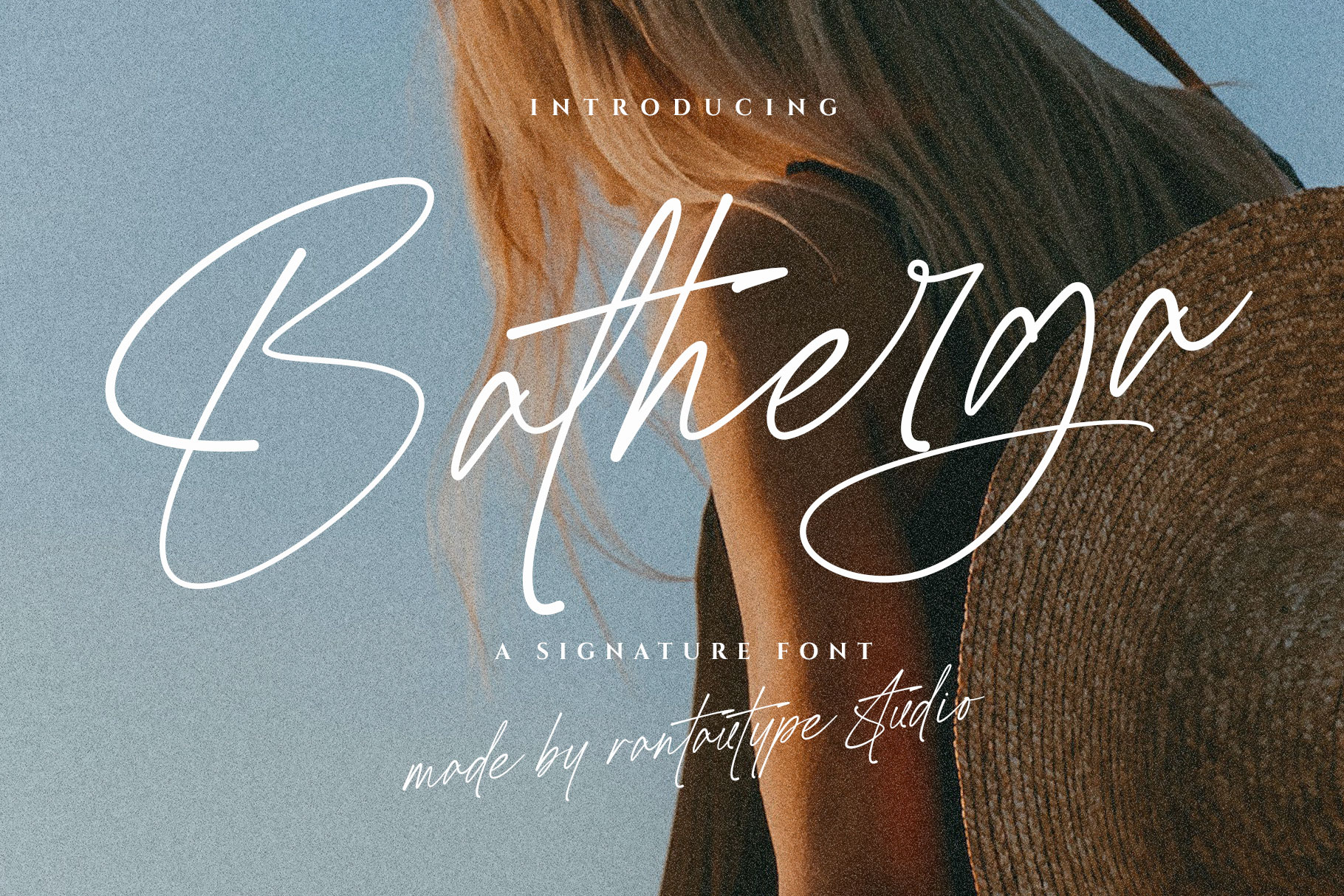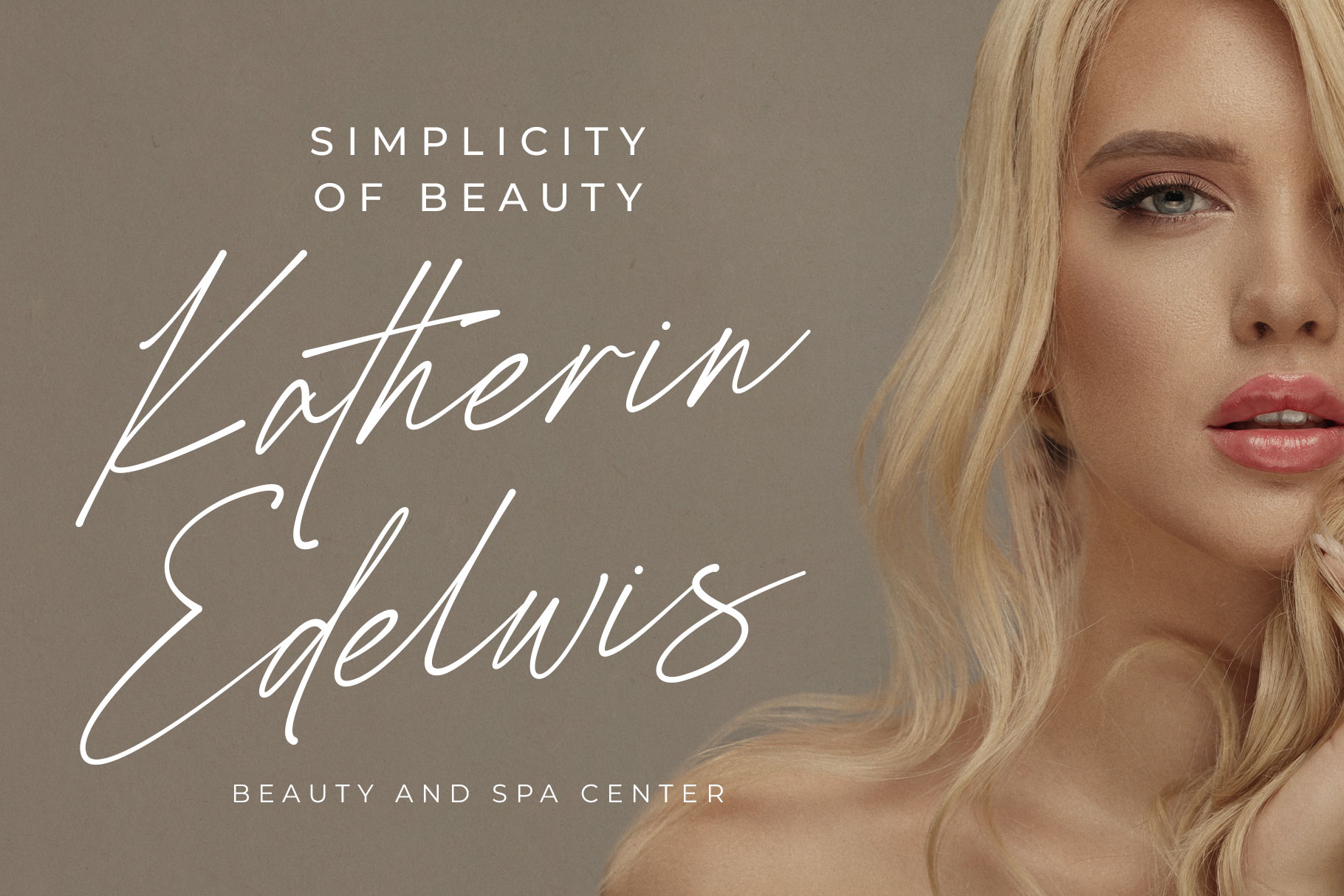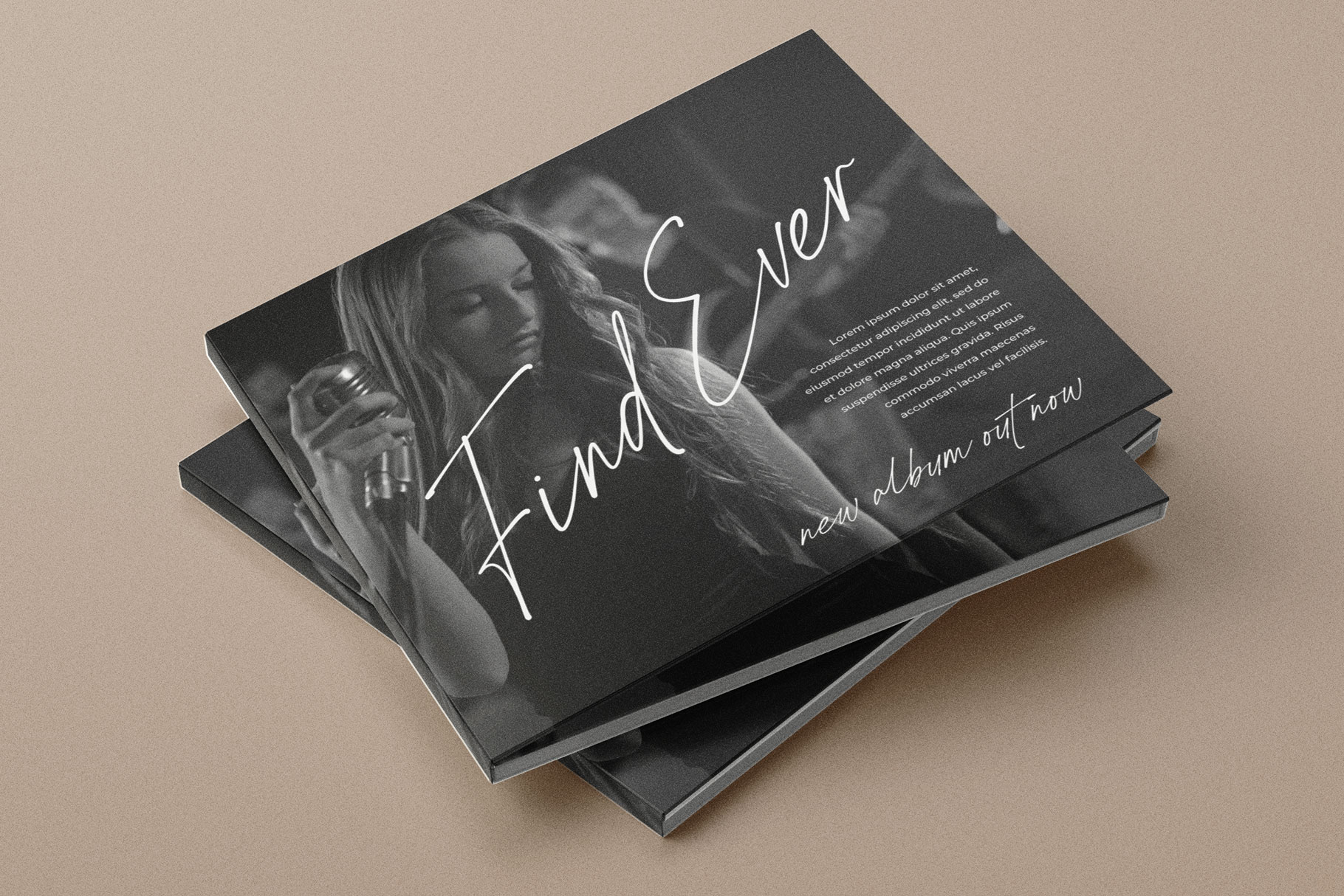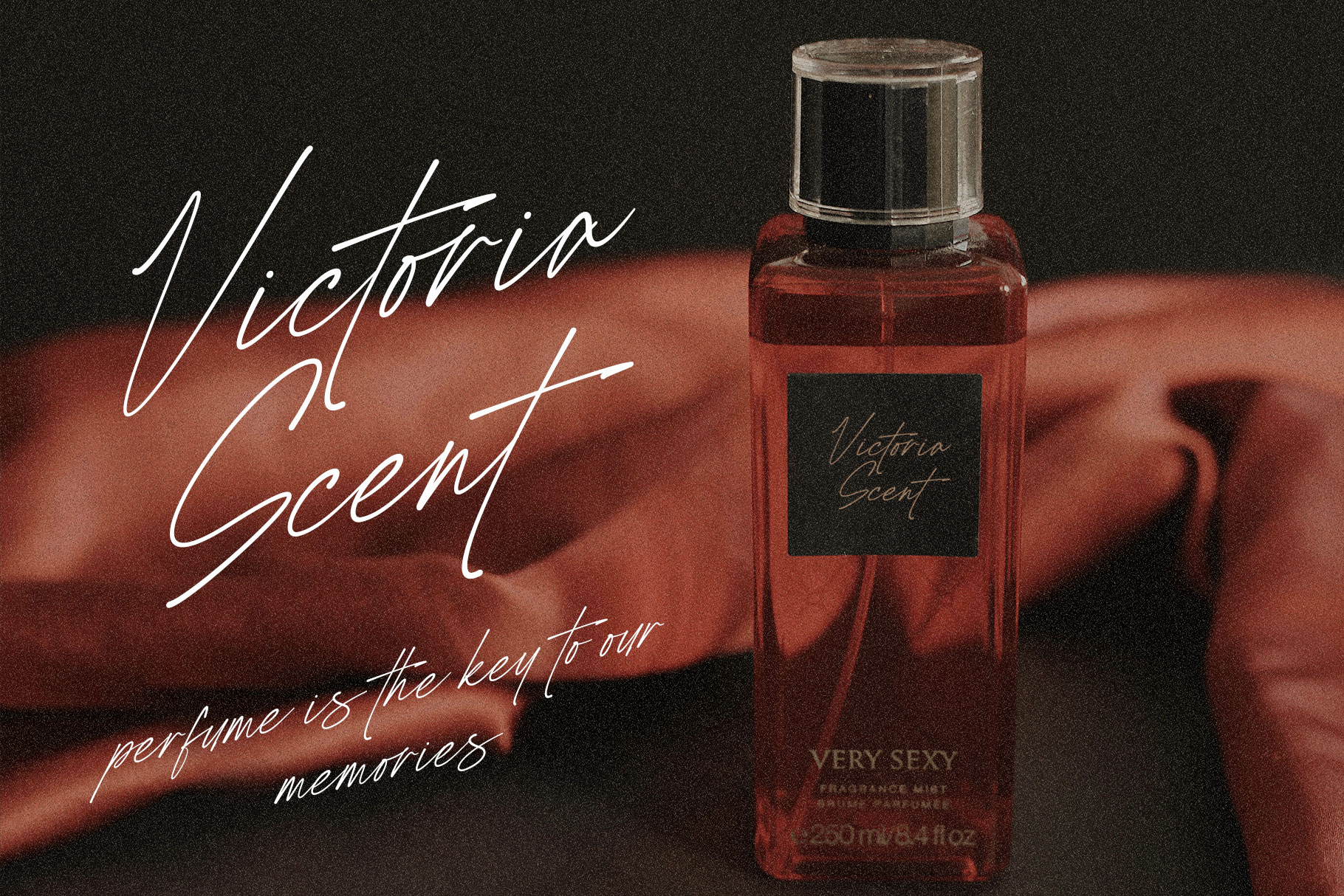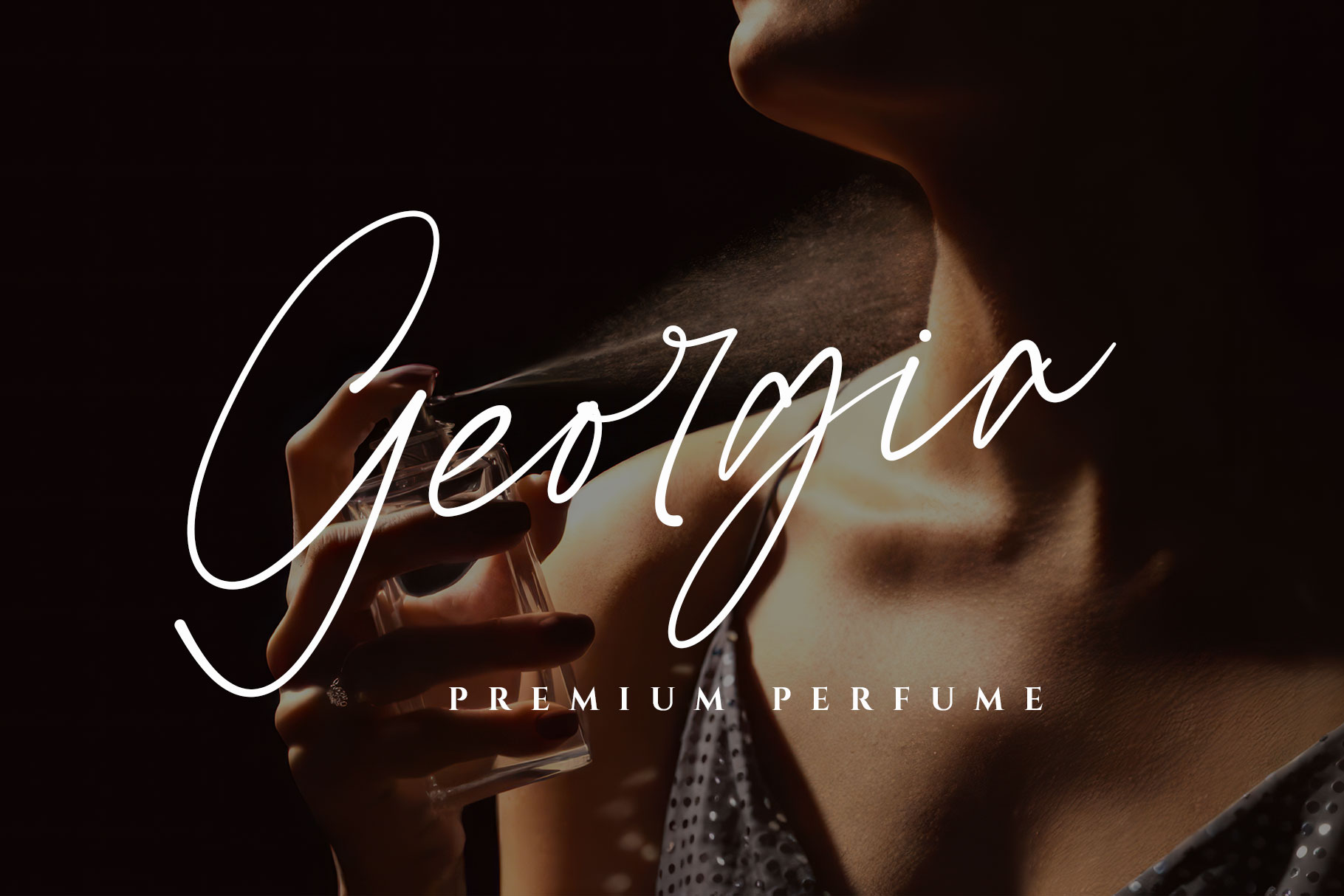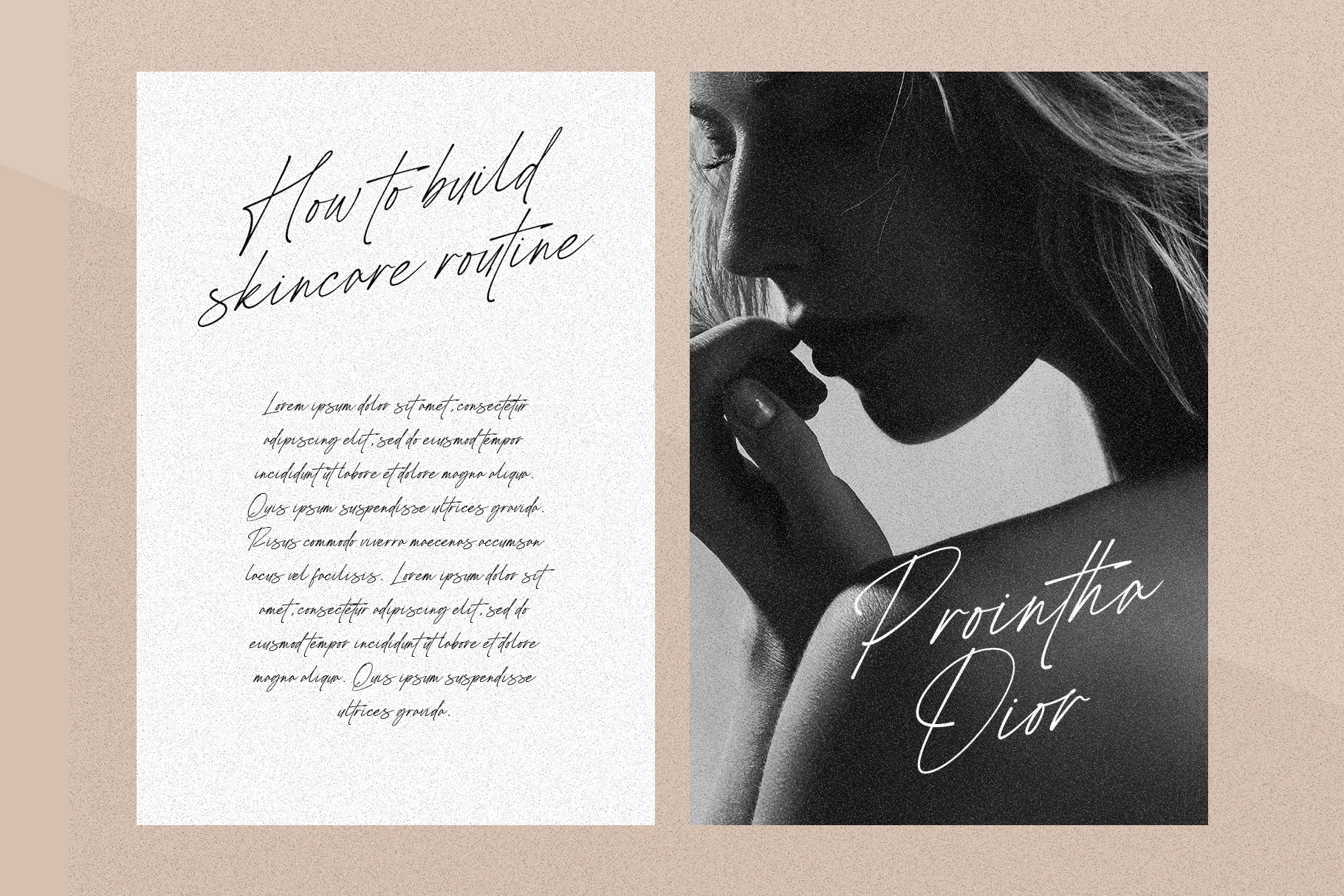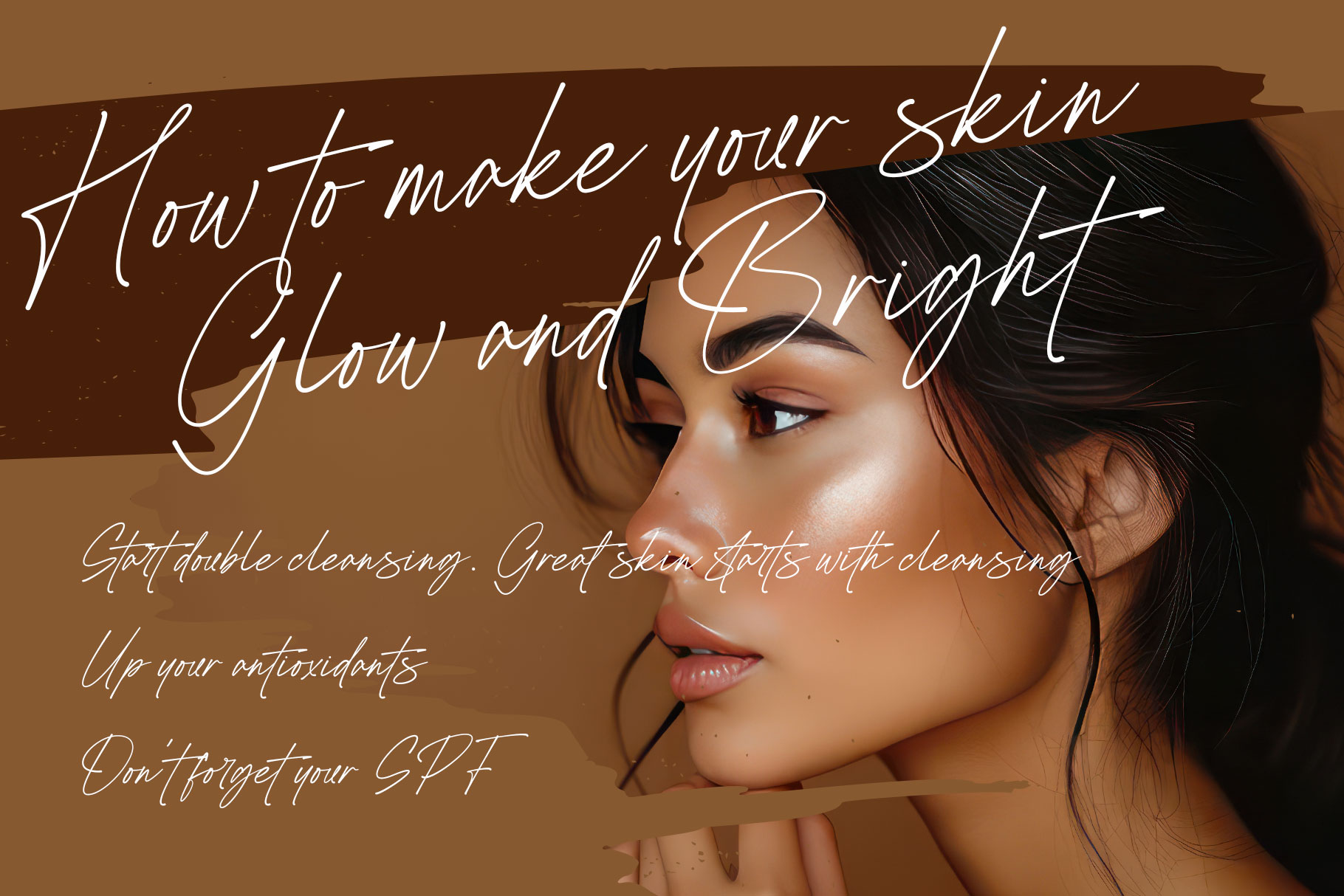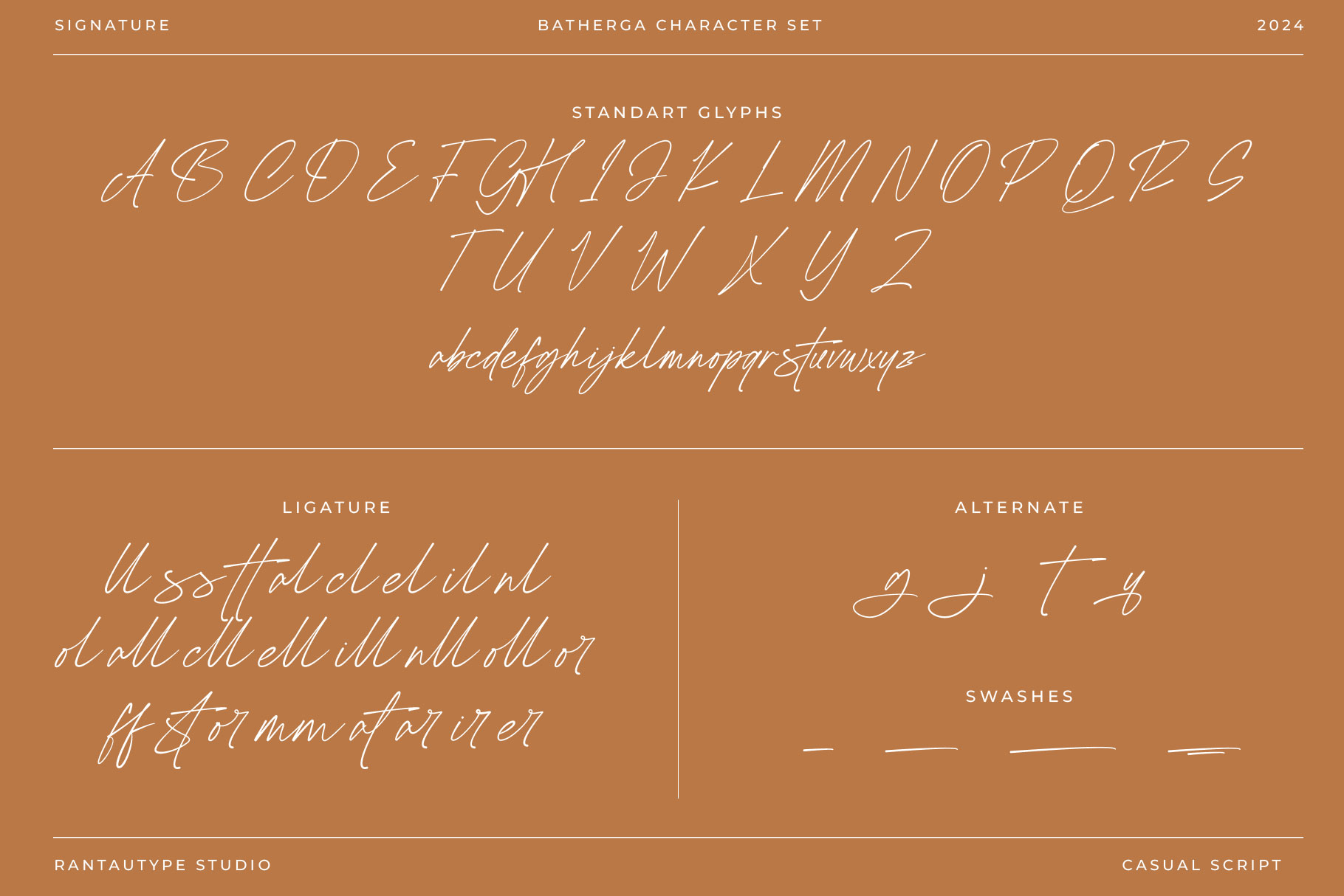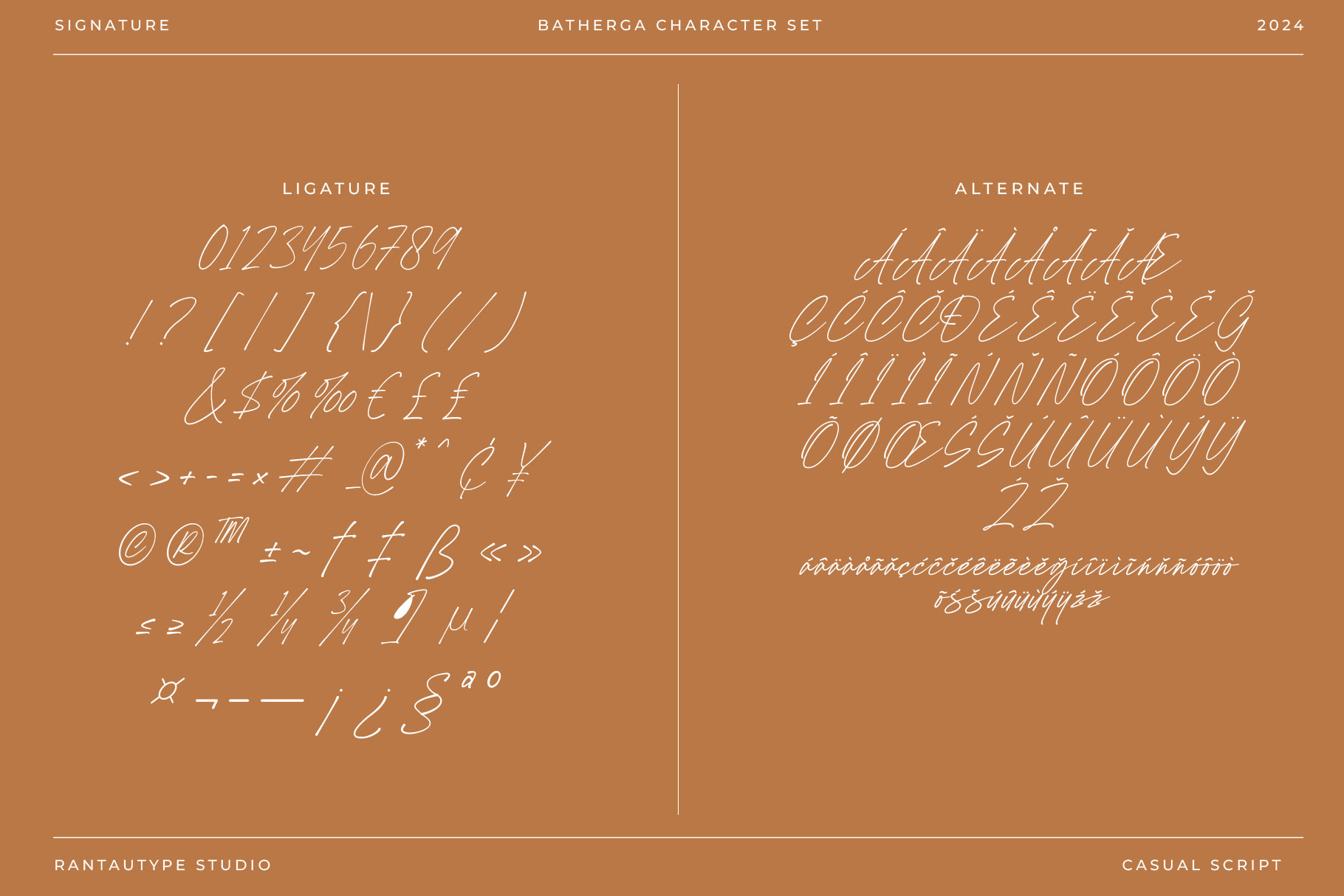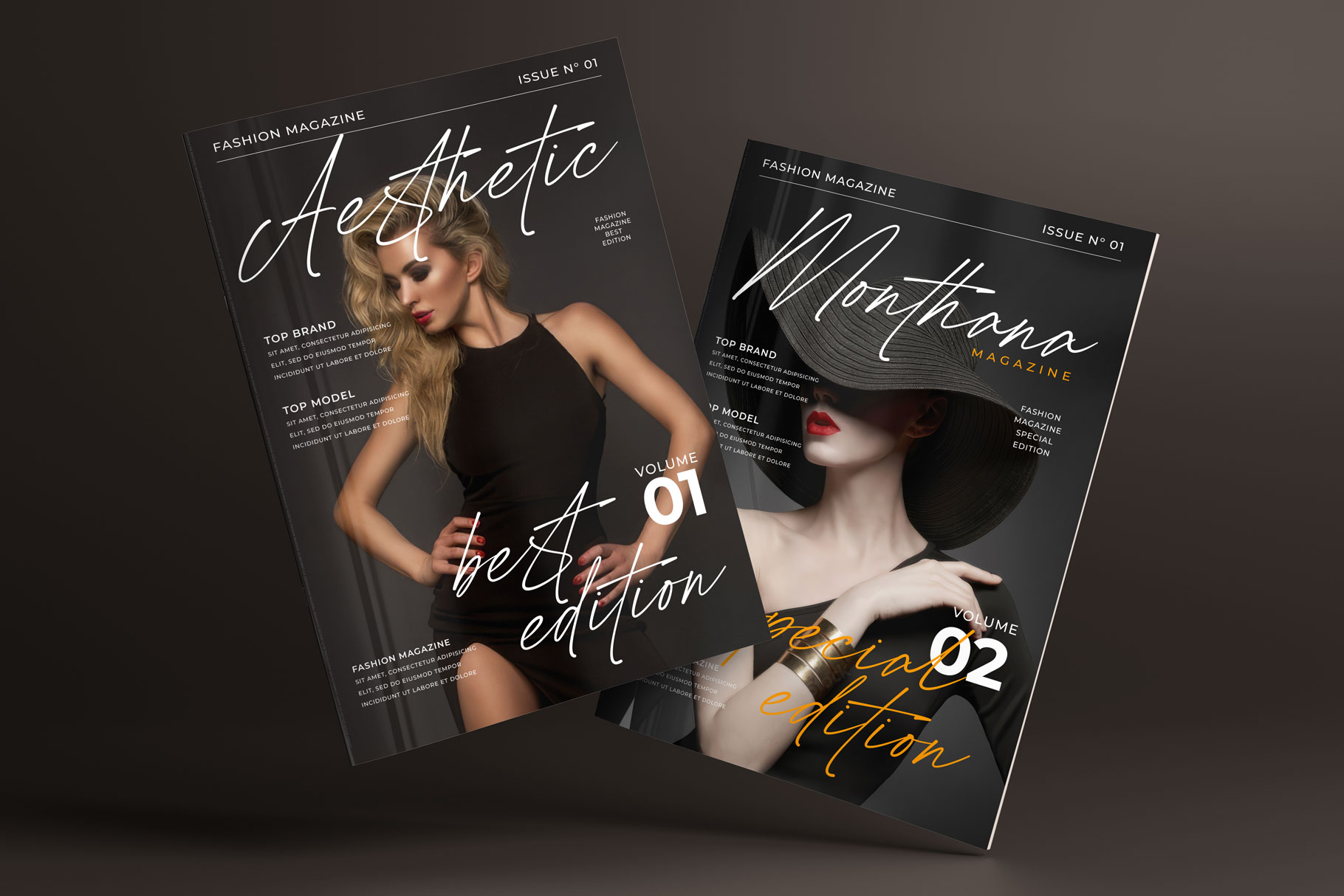
Batherga Signature Font
Batherga – a new signature font inspire by stylish script font. Batherga is a perfect choice for any creative endeavor, chic, lifestyle design such as logos, title, watermark on photography, cover, branding, display and magazine, wedding event, corporate brand, quotes, album cover, business card, business project, company branding and more project with handwritten taste.